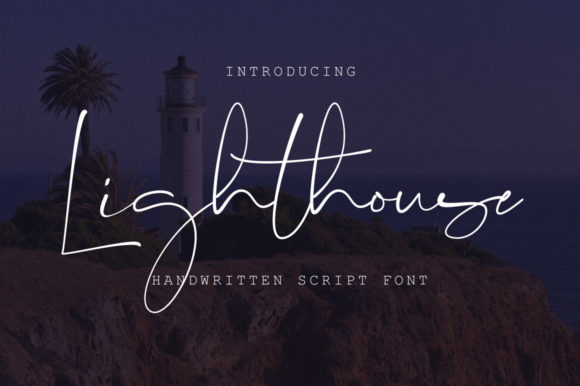
Introducing the captivating and elegant Lighthouse Script Font, a modern cursive font that will infuse your designs with a handwritten charm. Created by Digital Hustler, this font is the perfect choice for those seeking to add a touch of sophistication and style to their projects.
With its unique and eye-catching design, the Lighthouse Script Font offers endless possibilities for creative expression. Whether you're designing a wedding invitation, a logo for your business, or a social media post, this font will elevate your design and make it stand out from the crowd.
The Lighthouse Script Font exudes a sense of warmth and personalization, as if each letter was carefully crafted by hand. Its smooth and flowing lines create a seamless and effortless look, making it a versatile choice for any project.
Not only does the Lighthouse Script Font add elegance to your designs, but it also evokes a range of emotions. Its gentle curves and delicate strokes create a sense of romance, making it ideal for wedding stationery or love-themed designs. On the other hand, its bold and confident strokes can convey strength and power, making it suitable for a wide range of projects.
But the beauty of the Lighthouse Script Font doesn't stop at its aesthetics. It is also highly legible and easy to read, ensuring that your message is conveyed clearly to your audience. Its well-defined characters and balanced spacing make it a reliable choice for both print and digital media.
In summary, the Lighthouse Script Font is a must-have for designers and creatives looking to add a touch of elegance and personalization to their projects. Its modern cursive style, emotional appeal, and SEO-friendly design make it a versatile and captivating choice. Download the Lighthouse Script Font today and let your creativity shine!